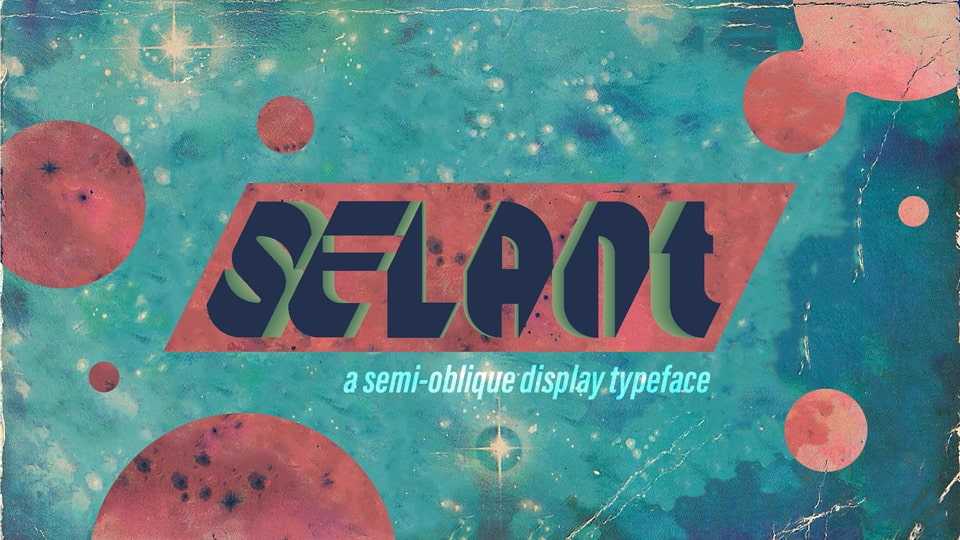
Download Selant font, a display typeface with the idea of having upright letters and numbers cut to be oblique. Selant was also inspired by retro book titles.